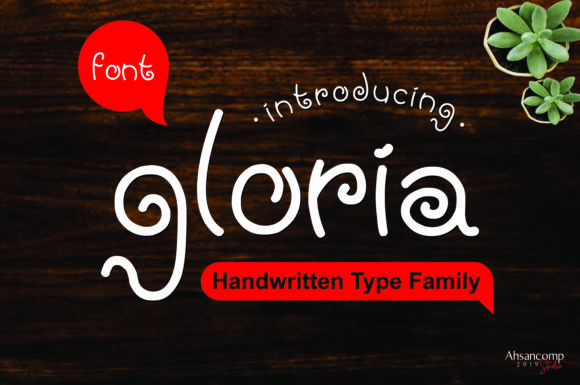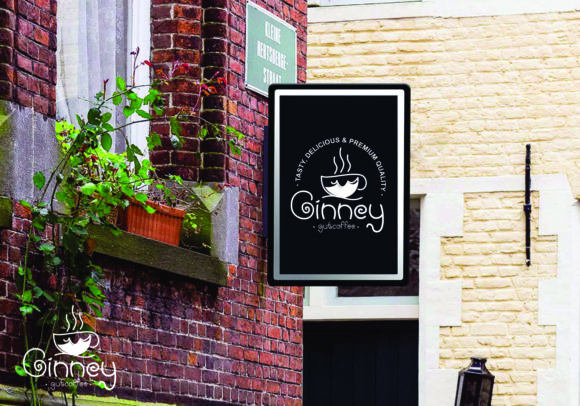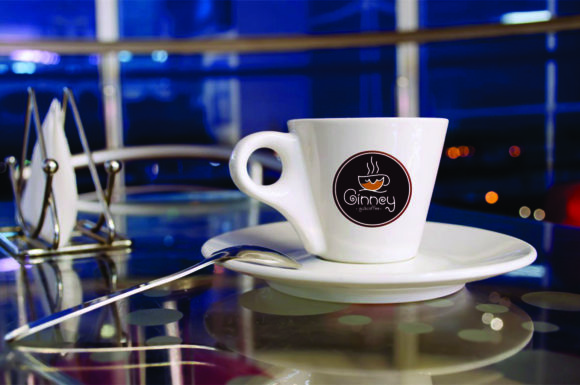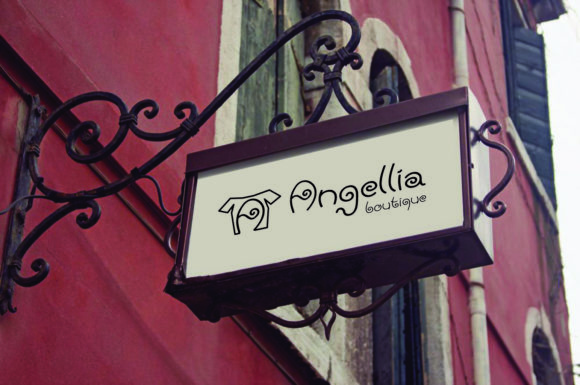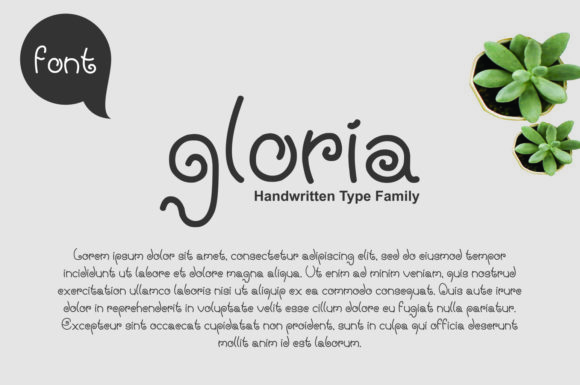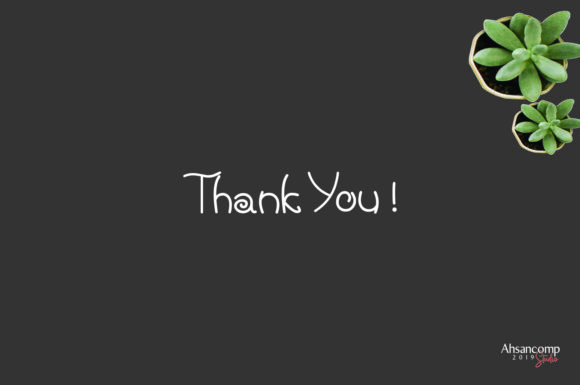
Gloria Font
About Gloria Font
The Gloria is an amazing handwritten typeface. It has a childish feel which can be used to add a fun touch to your designs.